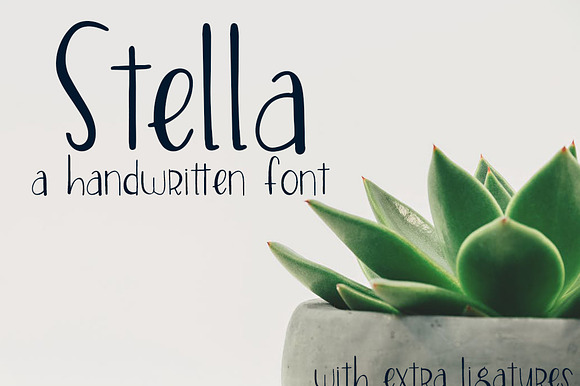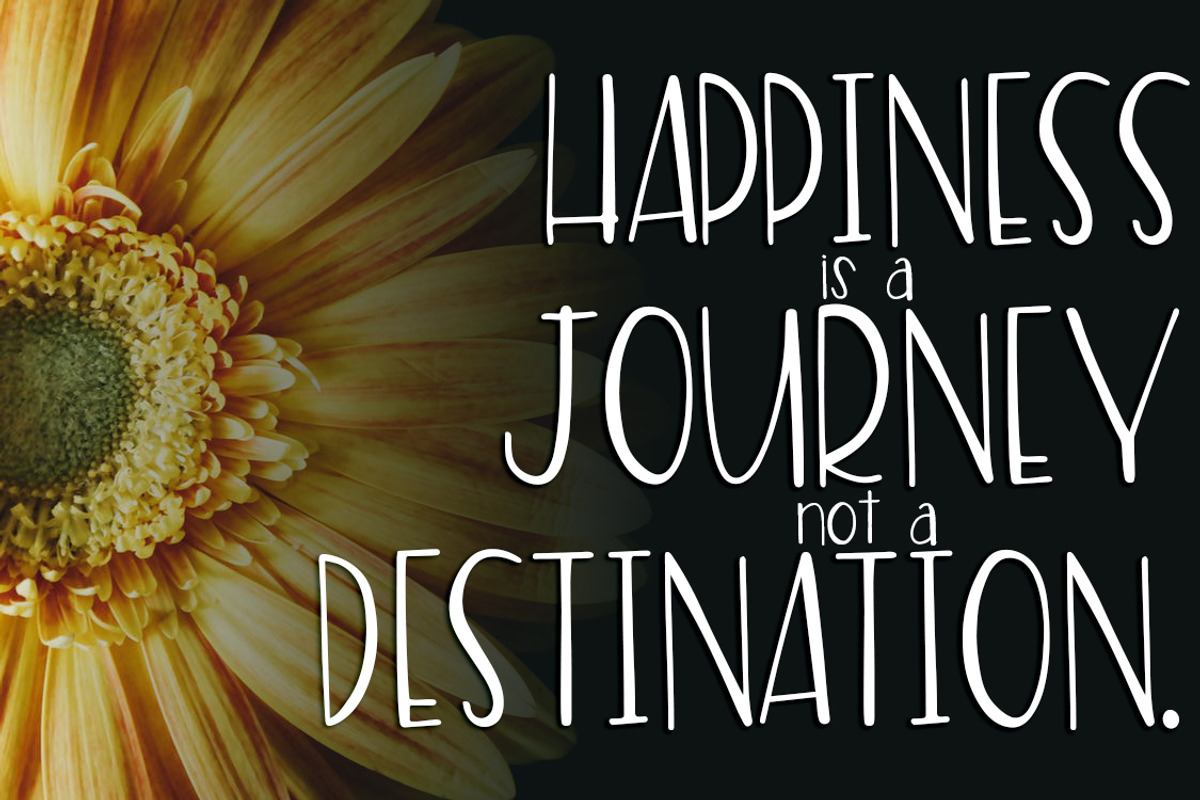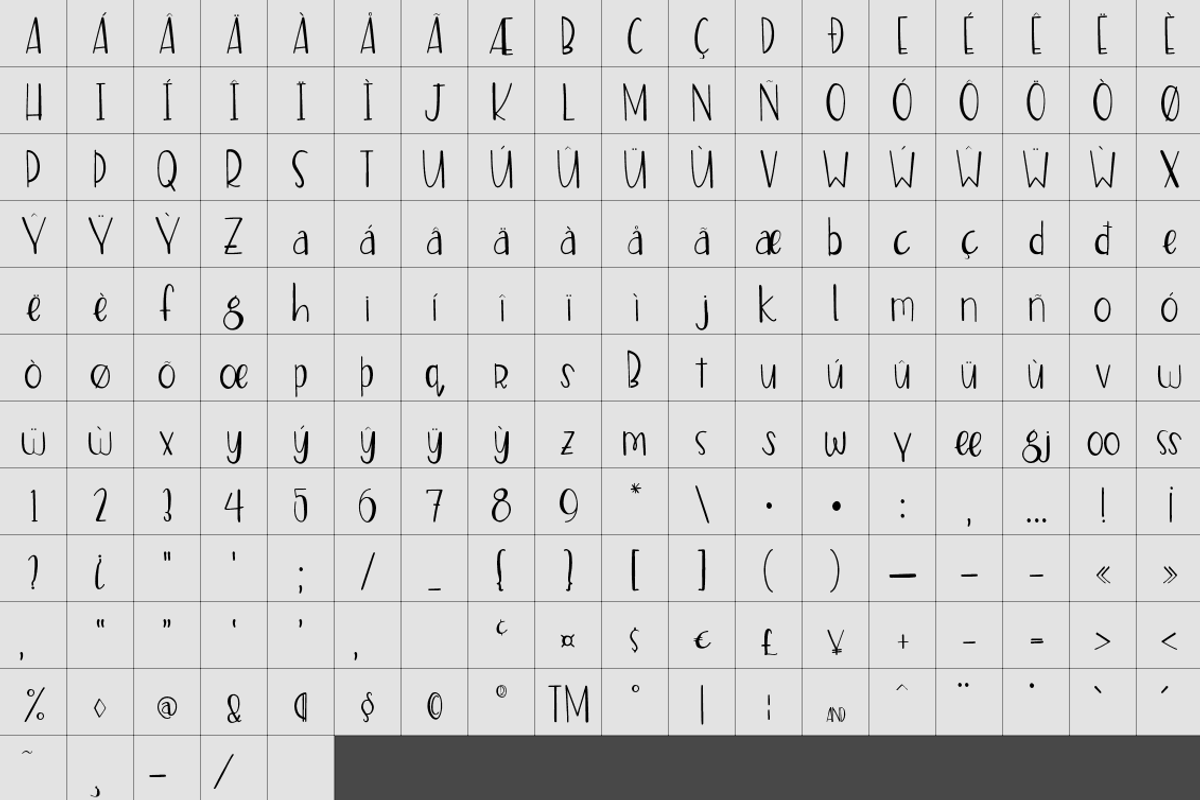
Stella Font
Inspired by my passion for hand-lettering, Stella is a simple, clean, and elegant font that looks great on greeting cards, amazing on t-shirts, perfect on mugs and combines seamlessly on just about any hand lettered project that comes your way.